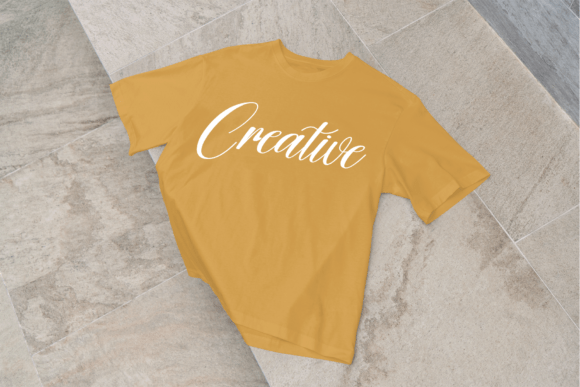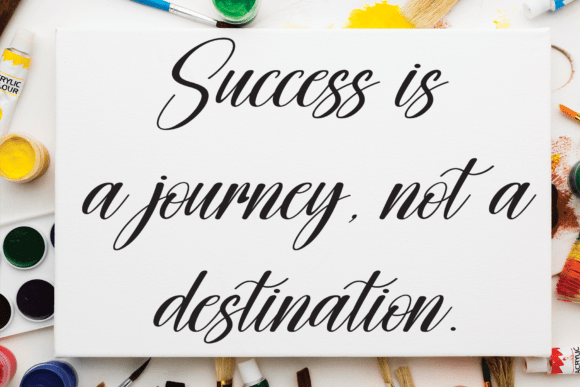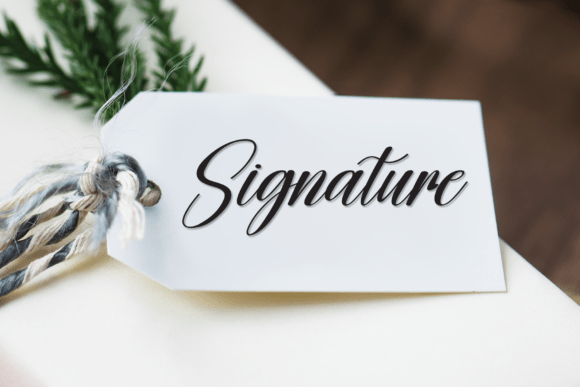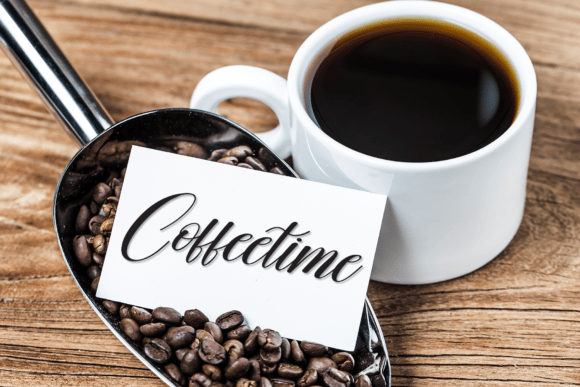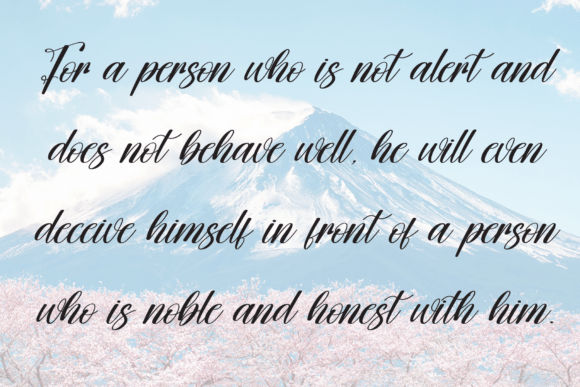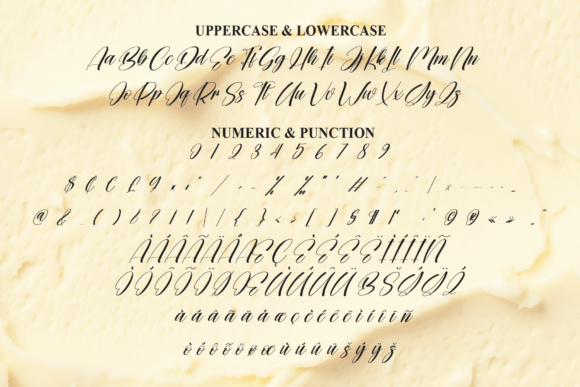
Introducing Buttery Font: The Sweetest Addition to Your Design Arsenal
Are you tired of using the same old fonts in your designs? Do you want to add a touch of personality and whimsy to your projects? Look no further than Buttery Font, a enchanting handwritten display font that’s sure to make your designs truly burst with charm and individuality.
The Charm of Buttery Font
Buttery Font is a delightful, handwritten font that’s radiating sweetness and friendliness. Its playful and jovial nature makes it the perfect addition to any creative endeavor, from wedding invitations and greeting cards to social media graphics and branding materials. With Buttery Font, you can add a touch of warmth and personality to your designs that will captivate and charm your audience.
What Makes Buttery Font So Special?
So, what sets Buttery Font apart from other fonts? Here are just a few things that make it truly special:
- Unique and Whimsical Design: Buttery Font features a one-of-a-kind, handwritten design that’s full of character and personality. Its playful strokes and charming letterforms make it the perfect choice for designers who want to add a touch of whimsy to their projects.
- Effortless Charm: Buttery Font has a way of making your designs feel more approachable and friendly. Its sweet and charming nature makes it perfect for projects that require a touch of warmth and personality.
- Versatile and Adaptable: Buttery Font is incredibly versatile and can be used in a wide range of design projects, from formal wedding invitations to playful social media graphics.
How to Use Buttery Font in Your Designs
Buttery Font is incredibly easy to use and can be incorporated into your designs in a variety of ways. Here are a few ideas to get you started:
- Wedding Invitations: Add a touch of romance and whimsy to your wedding invitations with Buttery Font. Its sweet and charming nature makes it perfect for wedding designs.
- Greeting Cards: Personalize your greeting cards with Buttery Font and make them truly special. Whether it’s a birthday, anniversary, or holiday card, Buttery Font is sure to make your card stand out.
- Social Media Graphics: Add a touch of personality to your social media graphics with Buttery Font. Its playful and jovial nature makes it perfect for creating engaging and shareable content.
- Branding Materials: Use Buttery Font to add a touch of warmth and personality to your branding materials, such as business cards, brochures, and packaging.
Tips and Tricks for Getting the Most Out of Buttery Font
Here are a few tips and tricks for getting the most out of Buttery Font:
- Experiment with Different Sizes and Colors: Buttery Font looks great in a variety of sizes and colors. Experiment with different combinations to find the one that works best for your design.
- Pair it with Other Fonts: Buttery Font pairs well with a variety of other fonts. Try pairing it with a clean and simple font for a striking contrast.
- Use it to Add Emphasis: Buttery Font is perfect for adding emphasis to your designs. Use it to highlight important information or to add a touch of personality to your text.
In conclusion, Buttery Font is a truly enchanting handwritten display font that’s sure to make your designs truly burst with charm and individuality. Its playful and jovial nature makes it perfect for a wide range of design projects, from wedding invitations and greeting cards to social media graphics and branding materials. With Buttery Font, you can add a touch of warmth and personality to your designs that will captivate and charm your audience. So why wait? Download Buttery Font today and start creating designs that are truly one-of-a-kind!